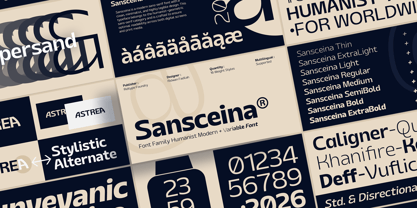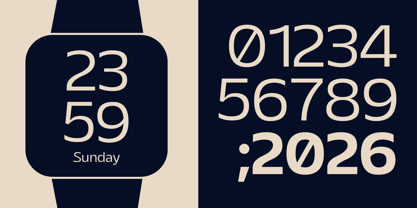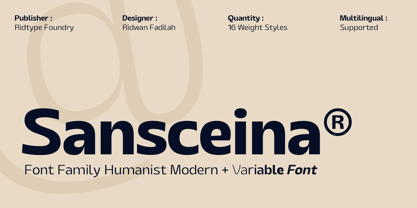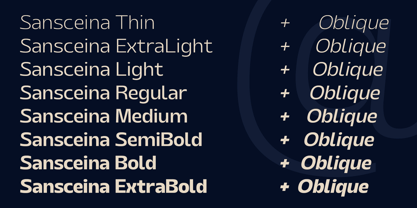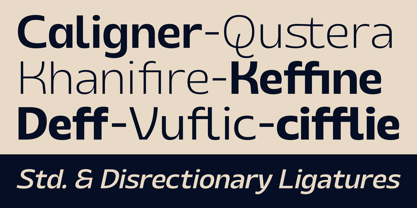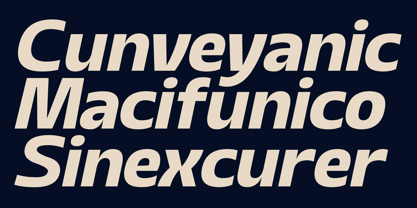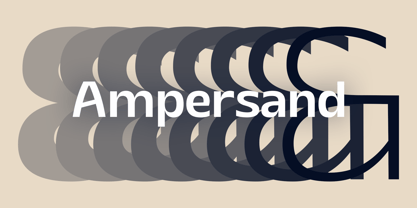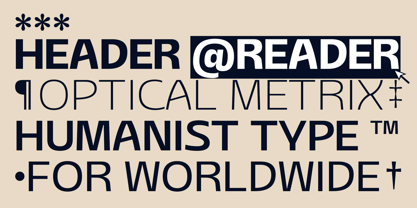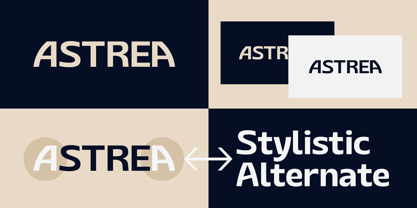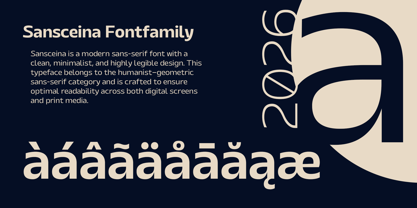
Sansceina
by Ridtype
The Sansceina Font Family was designed by Ridwan Fadilah and published by Ridtype. Sansceina contains 17 styles and family package options. More about this family
Sansceina is a modern sans-serif font with a clean, minimalist, and highly legible design. This typeface belongs to the humanist–geometric sans-serif category and is crafted to ensure optimal readability across both digital screens and print media. Featuring a full range of weights from Thin to ExtraBold, Sansceina is well suited for branding, UI/UX design, websites, editorial layouts, and corporate applications, delivering a professional, modern, and consistent visual appearance.
Designers: Ridwan Fadilah
Foundry: Ridtype